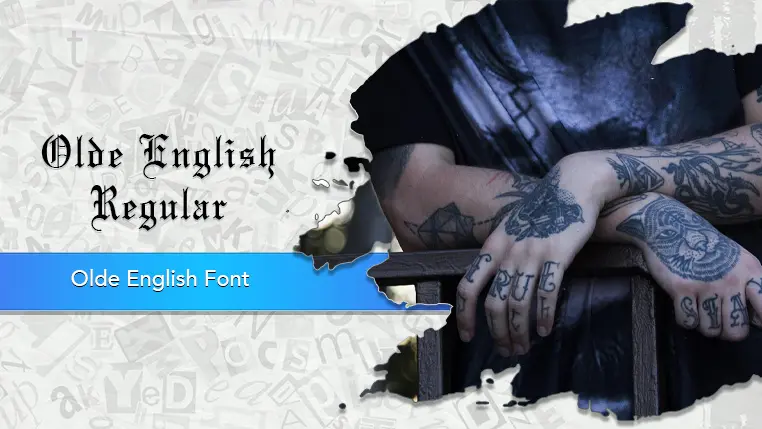
The Olde English font family may be ideal for you if you enjoy working on an artistic design project. The lively, expressive look of this typeface, which was created by Dieter Steffmann, makes it ideal for Tattoo, Logos and Branding. t's often used for titles on certificates, diplomas, and invitations for formal events where a sense of gravitas and history is desired. The font is perfect for projects related to the Middle Ages, fantasy novels, or historical narratives. Think of book covers, movie titles, or the branding for a Renaissance fair. Due to its complex letterforms, Olde English is best used for headlines, mastheads, and other short, decorative text elements. It is not suitable for body text as its legibility declines in long paragraphs. and other light-hearted visual projects.
Regular are the one primary font styles of the Olde English font family. You may build dynamic, visually appealing text layouts with the distinct flair that each style offers. With crisp, readable lines and a relaxed tone.